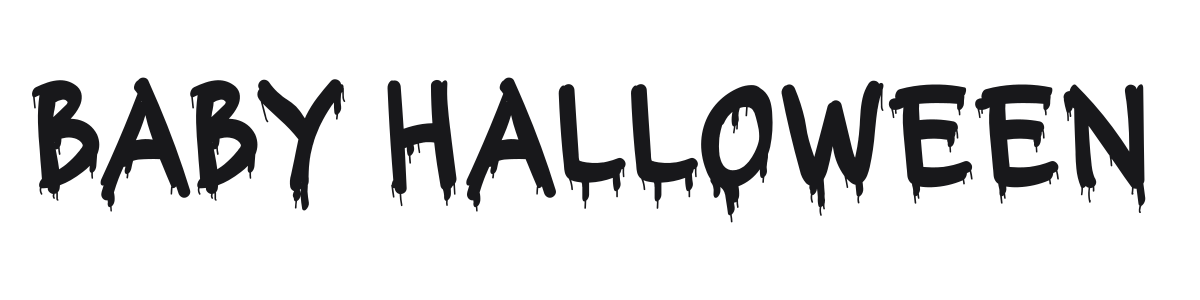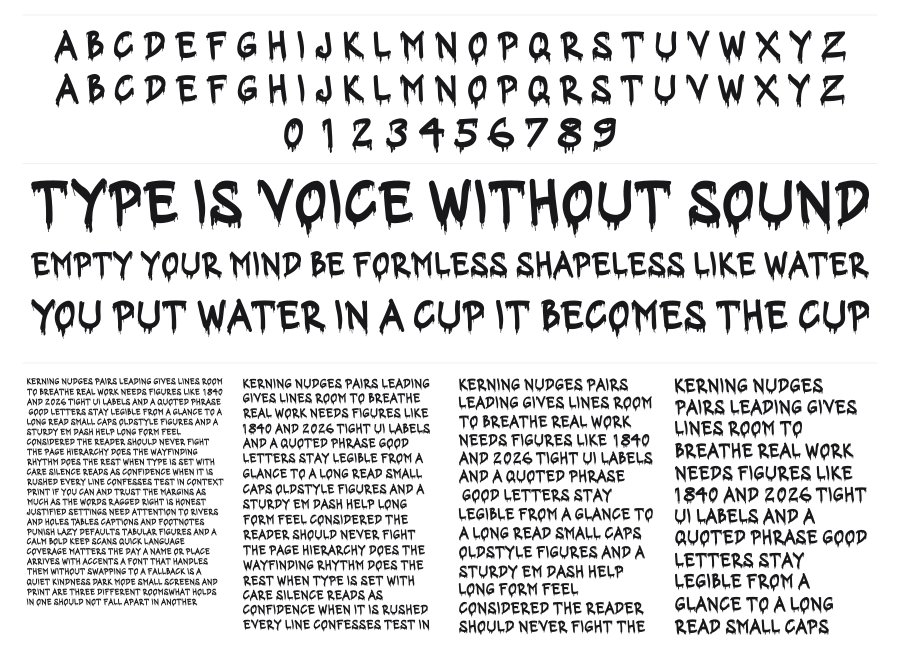
Baby Halloween
Baby Halloween is a bold horror display font built around an ink-drip motif, with heavy strokes that melt into elongated droplets at the bottom of each character. The irregular, hand-painted quality gives it genuine energy without feeling generic. It works best at large sizes for Halloween posters, seasonal packaging, and horror-themed branding.